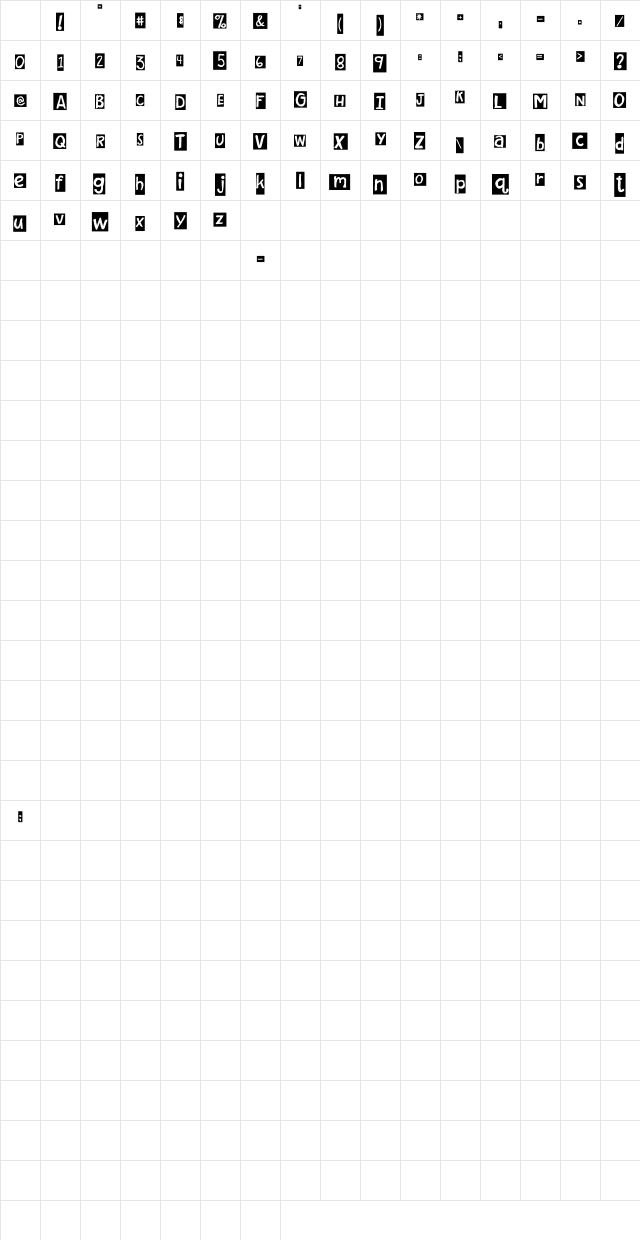
2Peas Jilted Bride 2Peas Jilted Bride Free Font
2Peas Jilted Bride 2Peas Jilted Bride
Style: 2Peas Jilted Bride
Complete 2Peas Jilted Bride glyph index. Displaying only characters natively supported by 2Peas Jilted Bride 2Peas Jilted Bride font.
Design Context for 2Peas Jilted Bride
2Peas Jilted Bride is a composed and adaptable typeface that performs quietly and consistently across a wide range of design contexts.